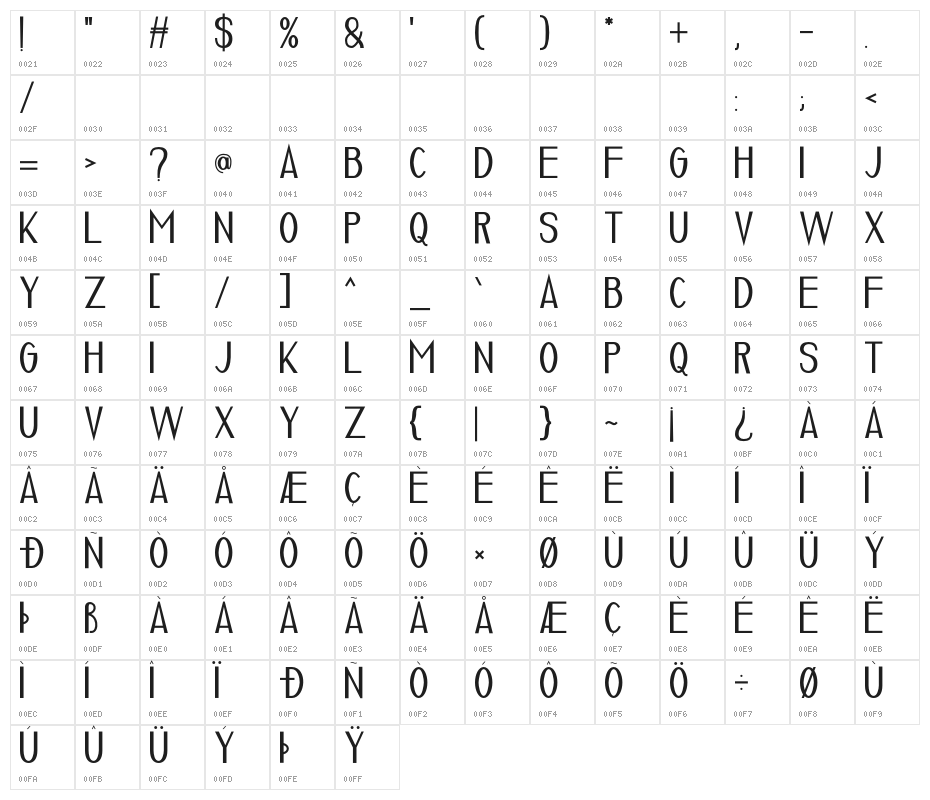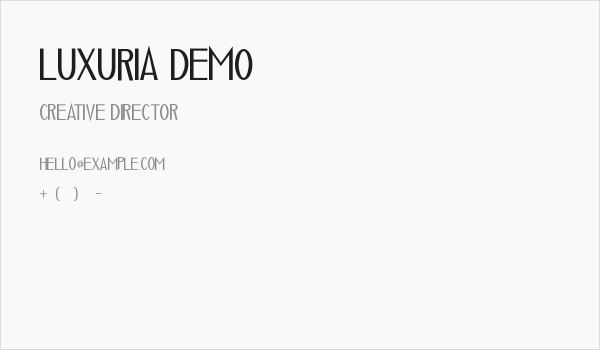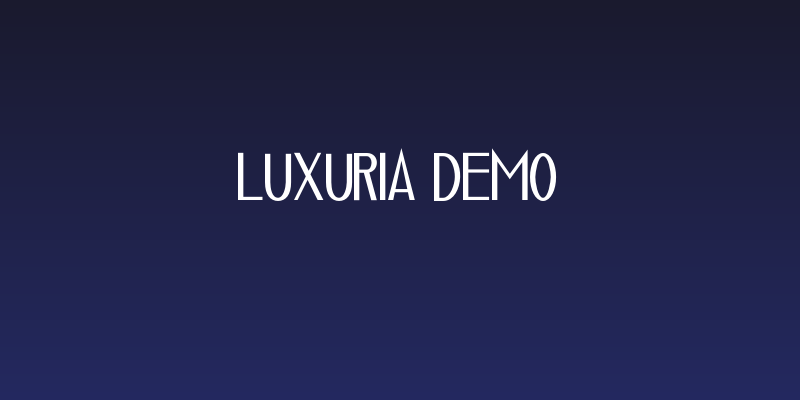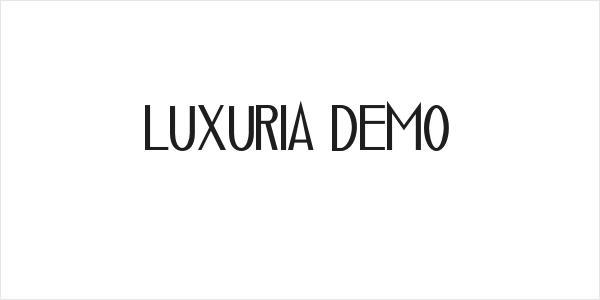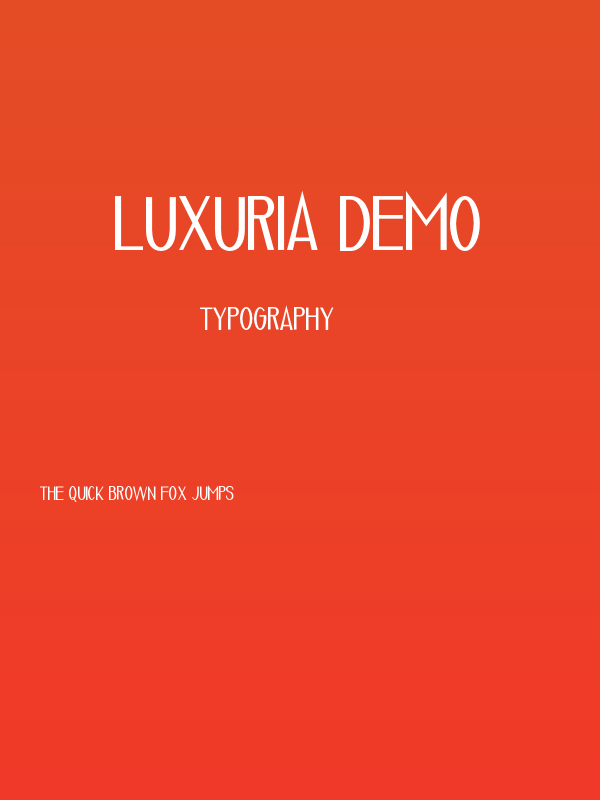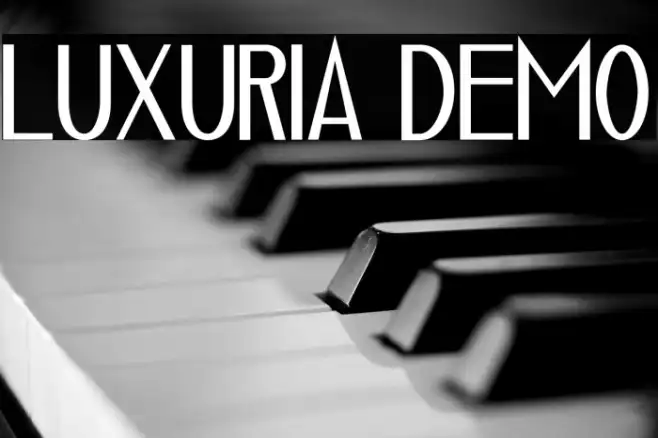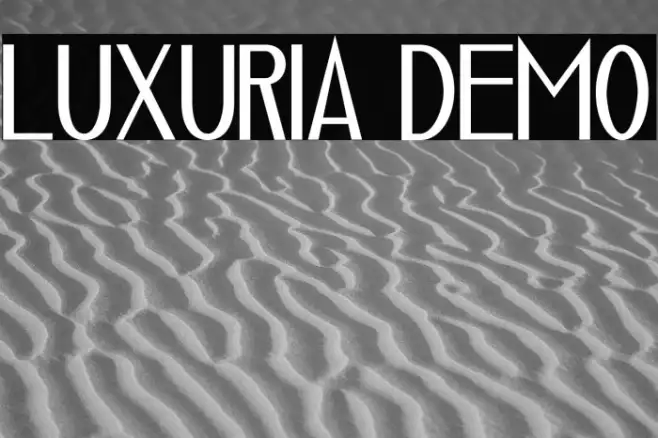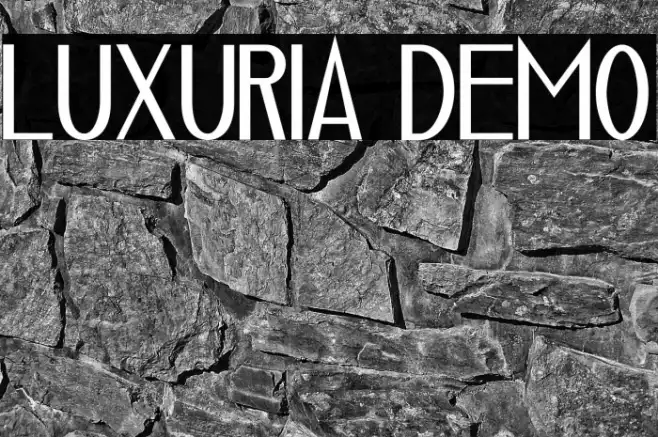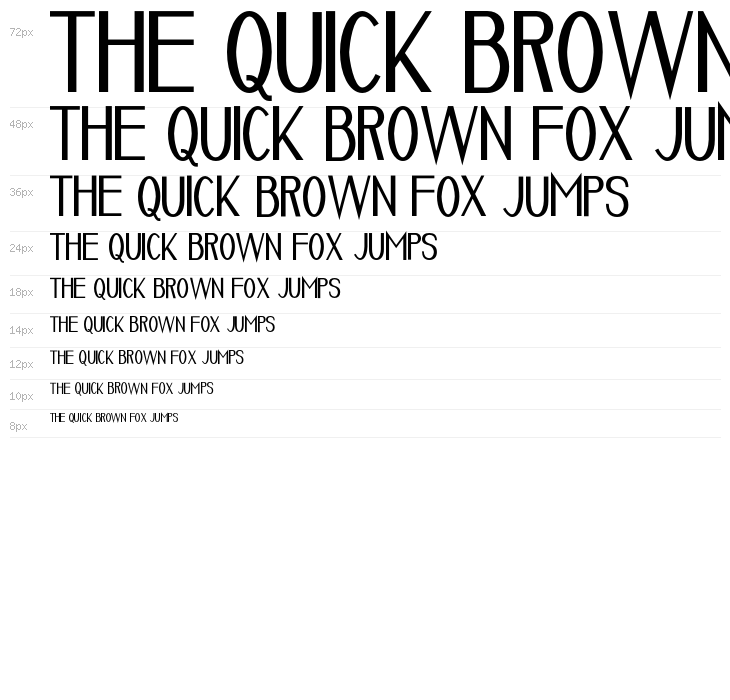
Luxuria Demo Font
Luxuria Demo Description
This font features a sleek and modern design with tall, narrow characters that convey a sense of elegance and sophistication. The uppercase letters are particularly elongated, giving them a distinctive appearance that stands out in any design. The lowercase letters maintain a consistent style, complementing the uppercase with their own slender forms. The numerals and special characters are crafted with the same attention to detail, ensuring a cohesive look across all text. The font's clean lines and minimalistic approach make it versatile for various design applications.